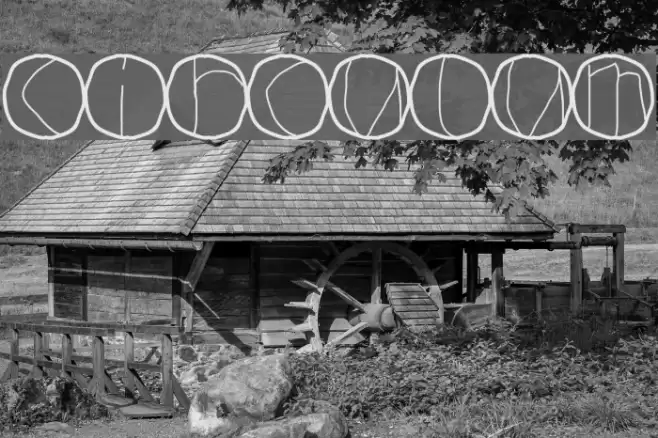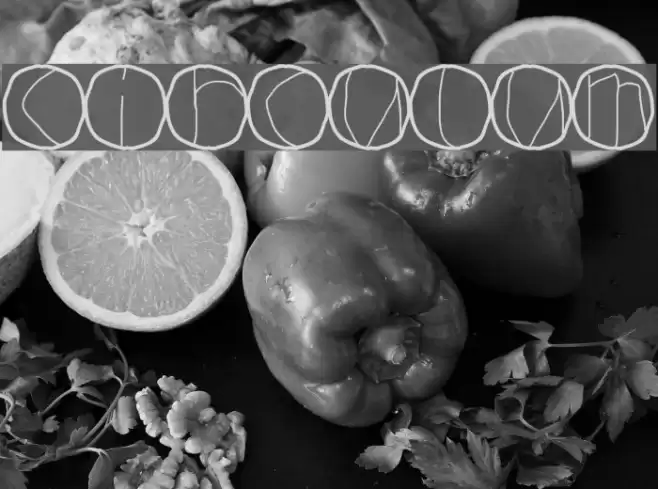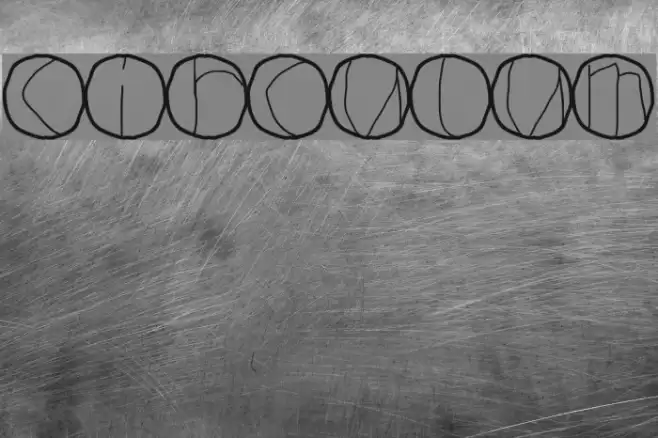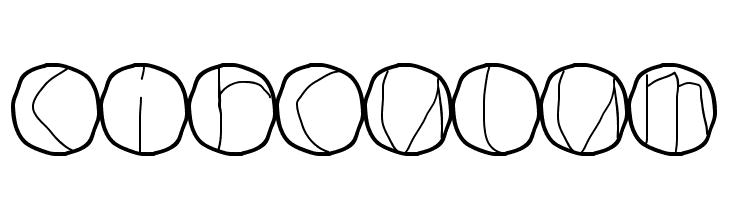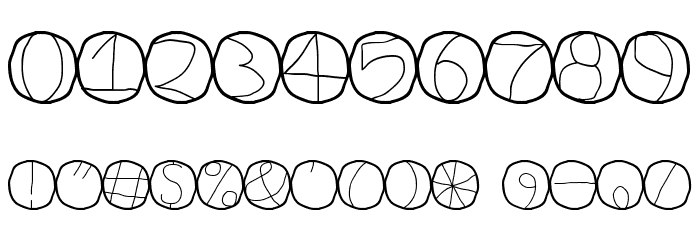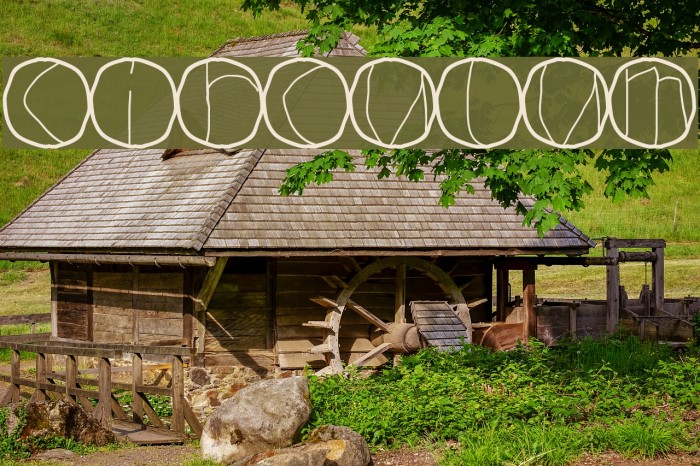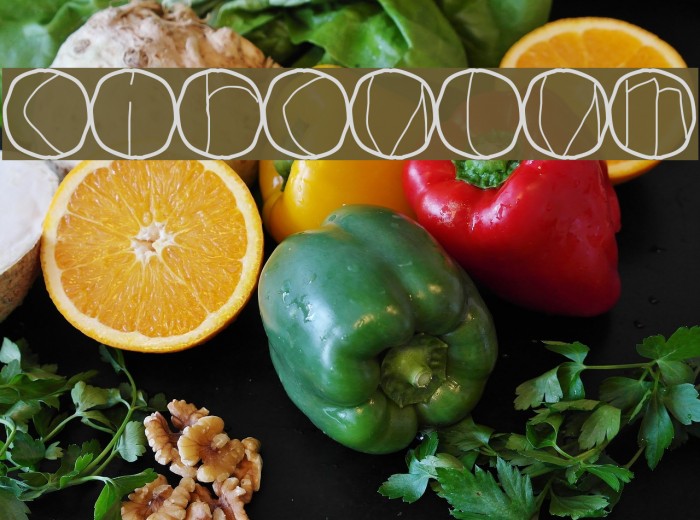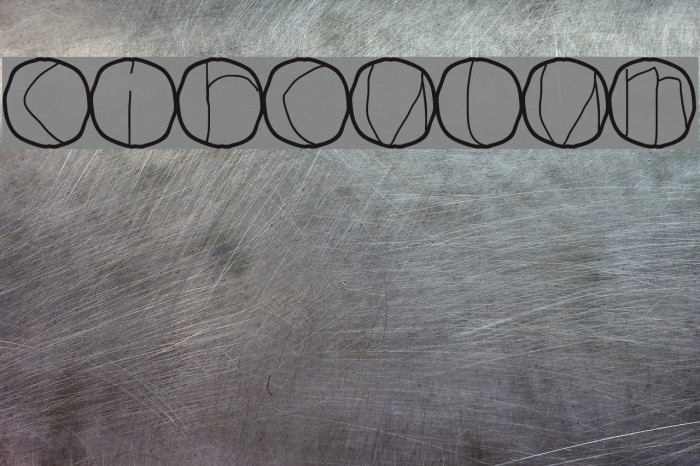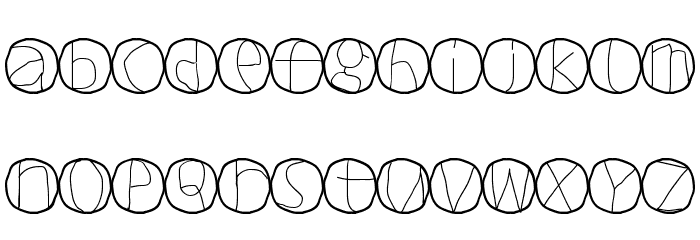
Circulum Font
Circulum Description
This font features a unique and artistic design where each character is enclosed within a circular shape. The letters and numbers are constructed with geometric lines and angles, creating a modern and abstract appearance. The overall look is both structured and playful, making it stand out in any design project. The font maintains a consistent circular boundary for each character, providing a cohesive and uniform aesthetic. Its distinctive style is ideal for creative and contemporary applications, offering a fresh take on traditional typography.
A modern, geometric font with characters enclosed in circles from Uncategorized fonts.
- Proposed Projects: Ideal for modern art projects, creative branding, unique posters, and innovative digital designs.
- Use Case: Logos, Posters, Creative Branding